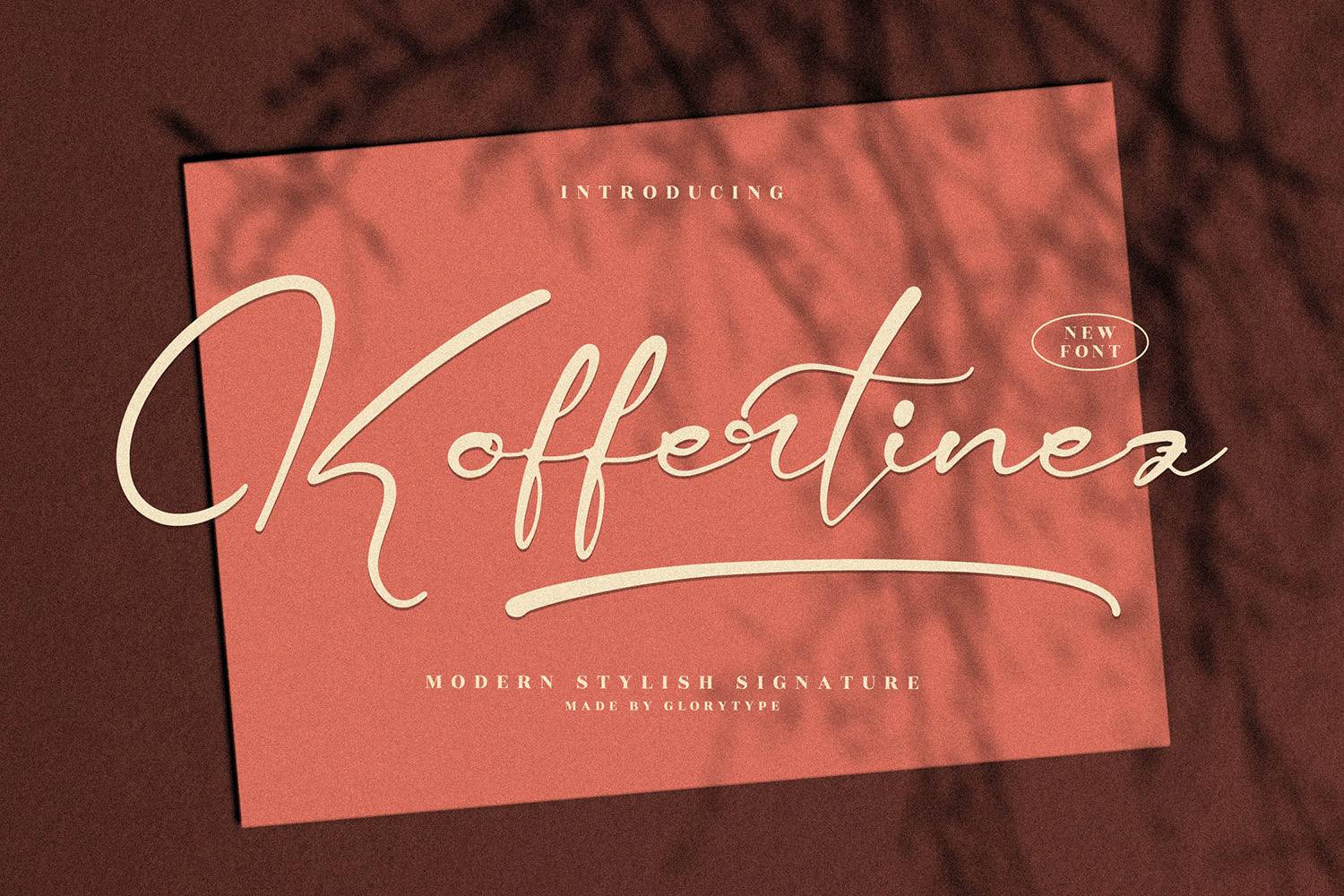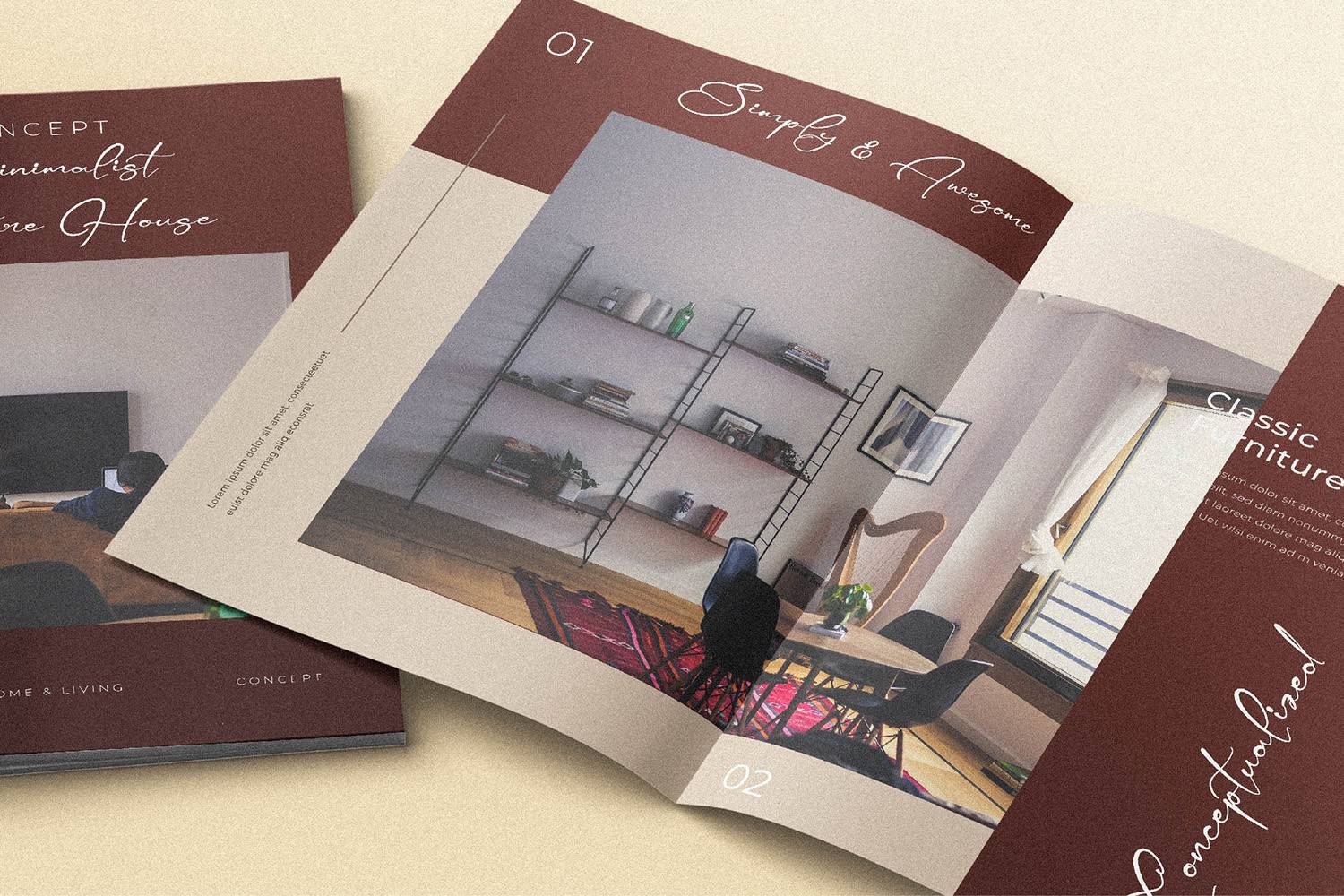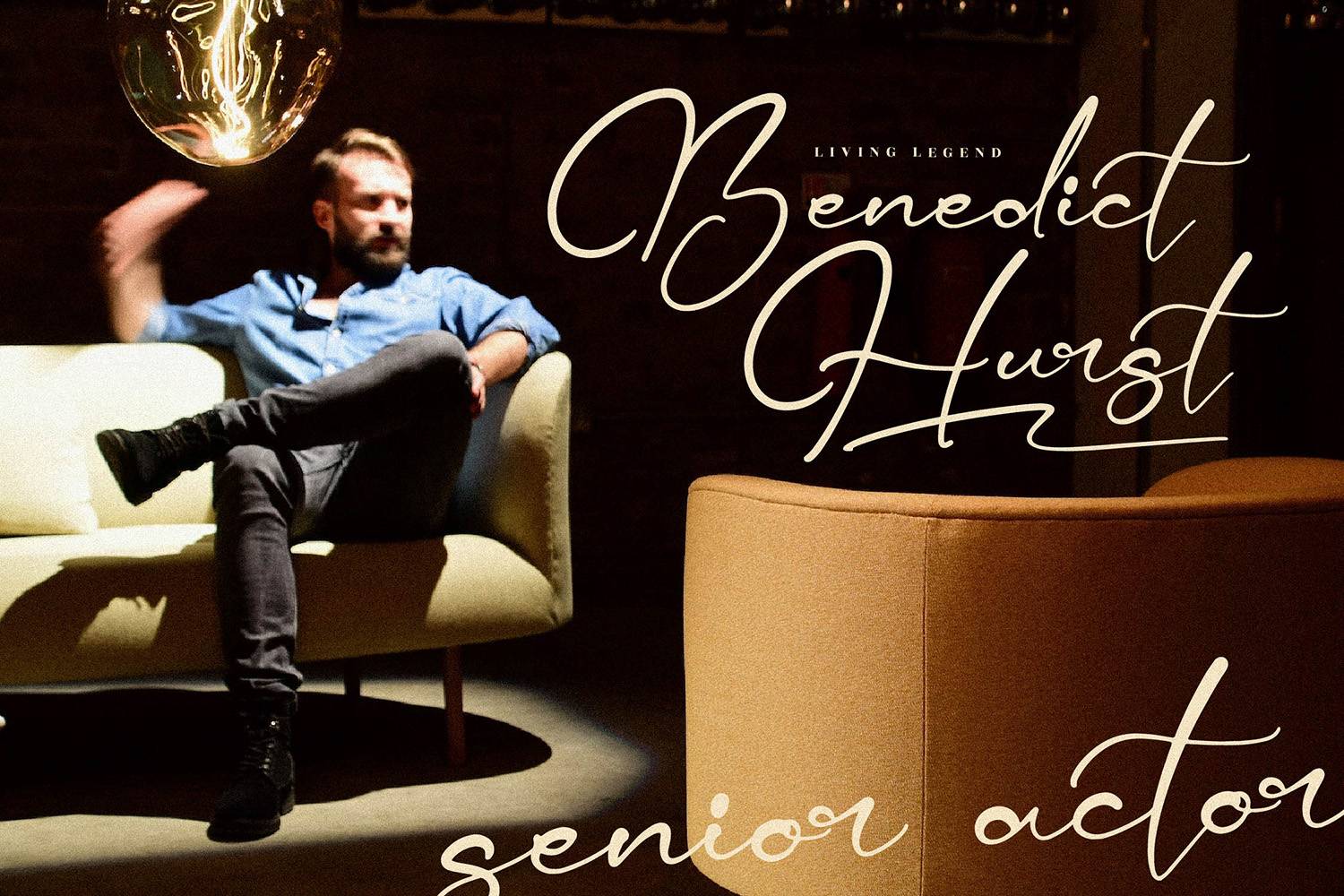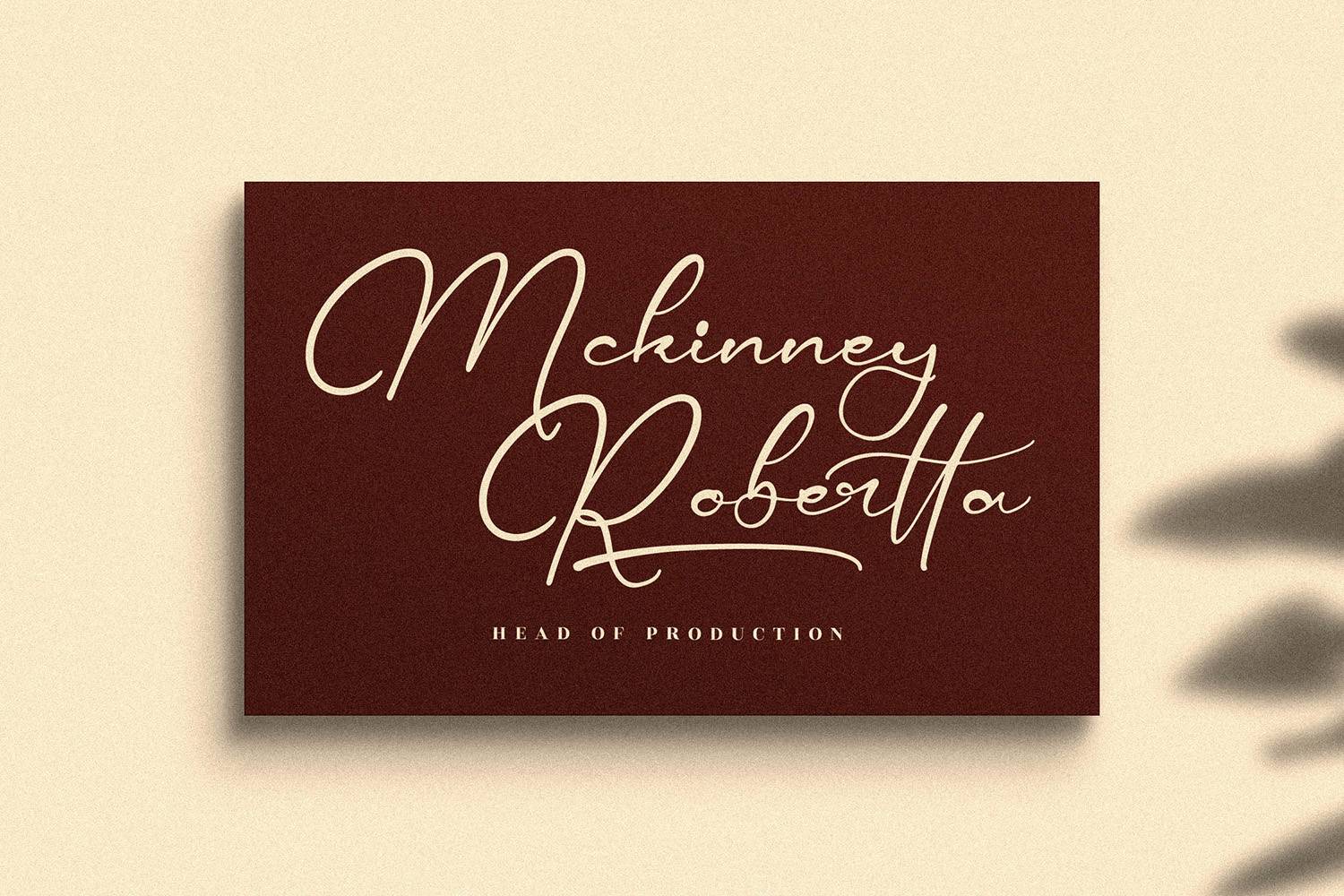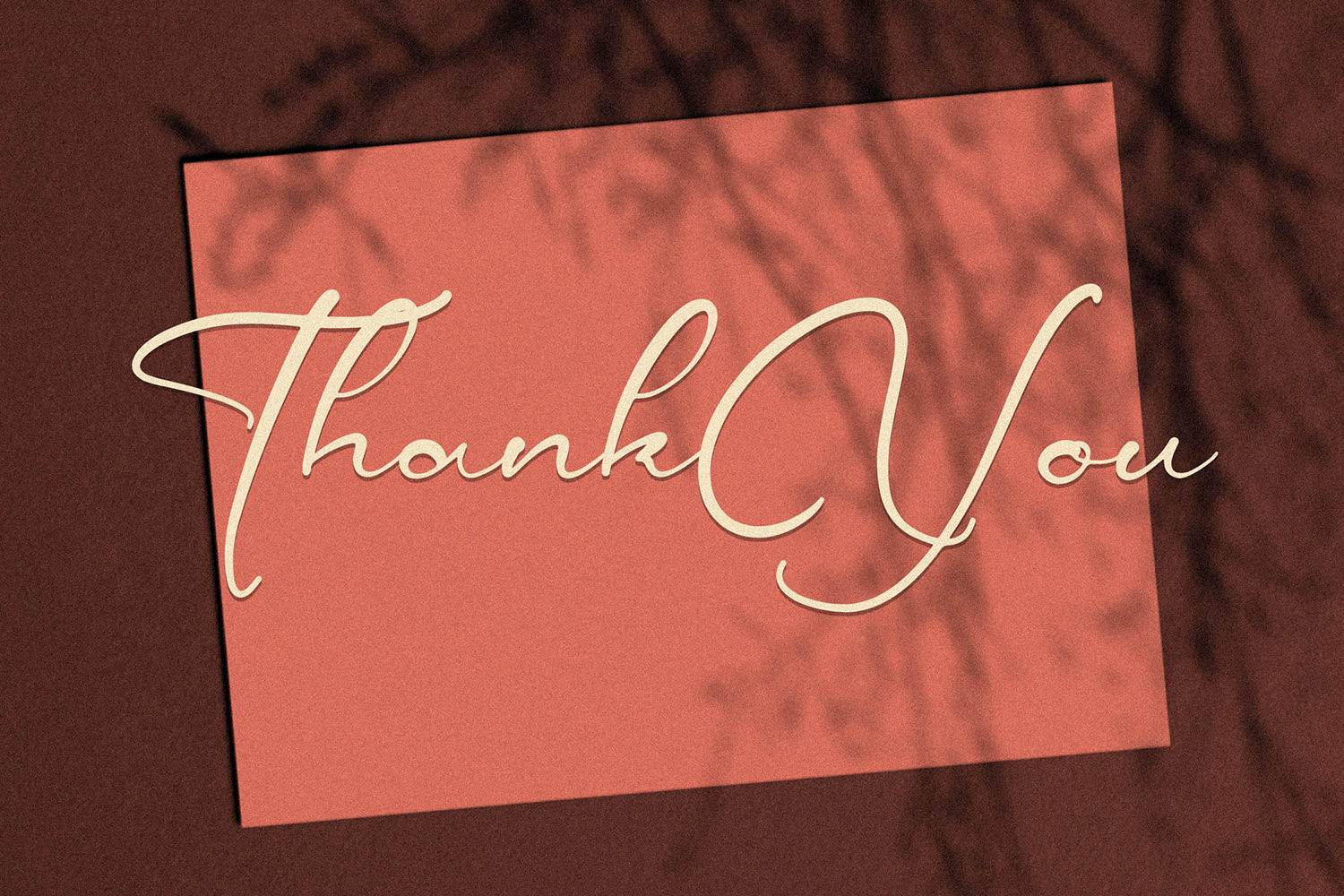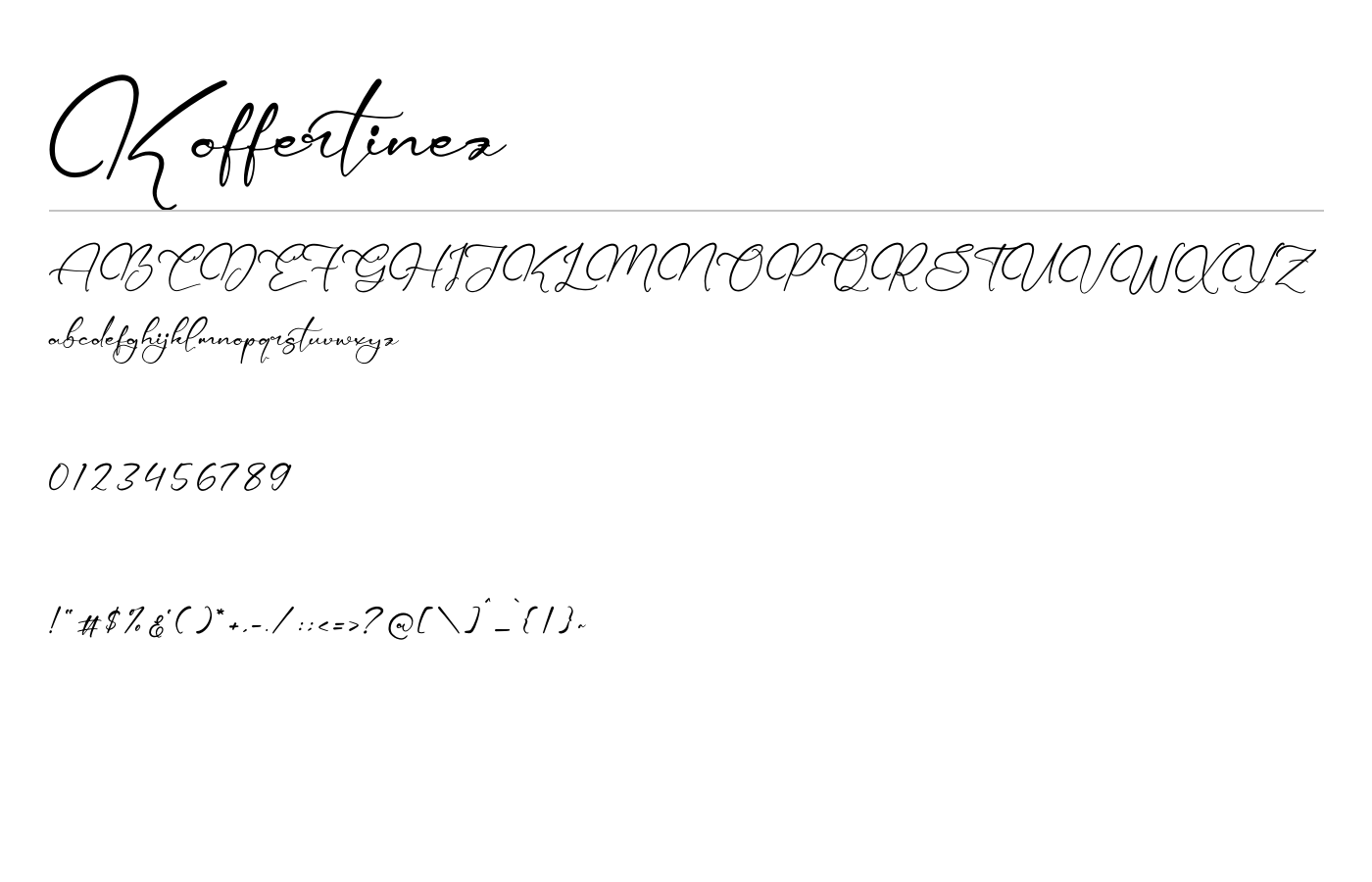
Koffertinez is an elegant, delicate script font featuring thin, flowing strokes that emulate refined, handwritten calligraphy. Its graceful letterforms with high contrast and ornate curves create a romantic and sophisticated feel, perfect for luxury branding, wedding invitations, and stylish logos. The font's airy spacing and slender characters make it ideal for decorative headlines rather than extended text.
Koffertinez Font
About Koffertinez Font